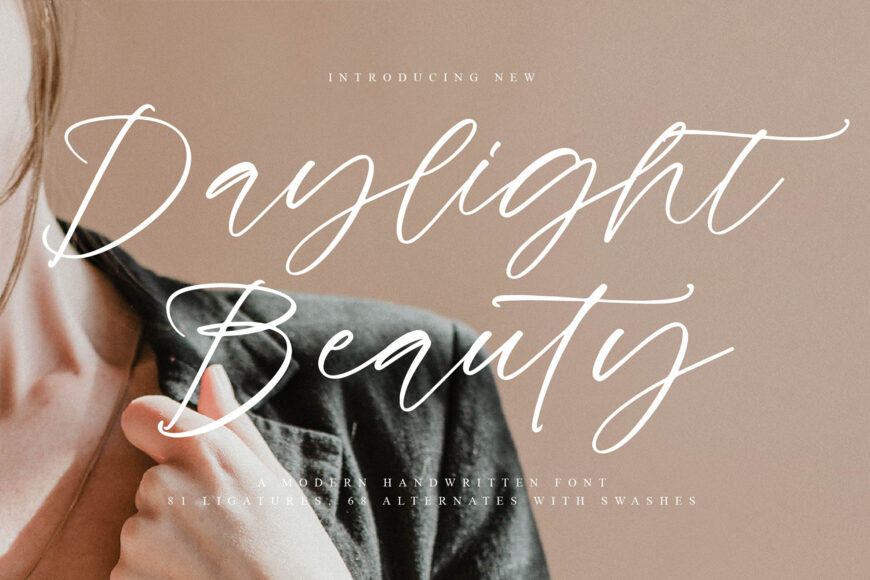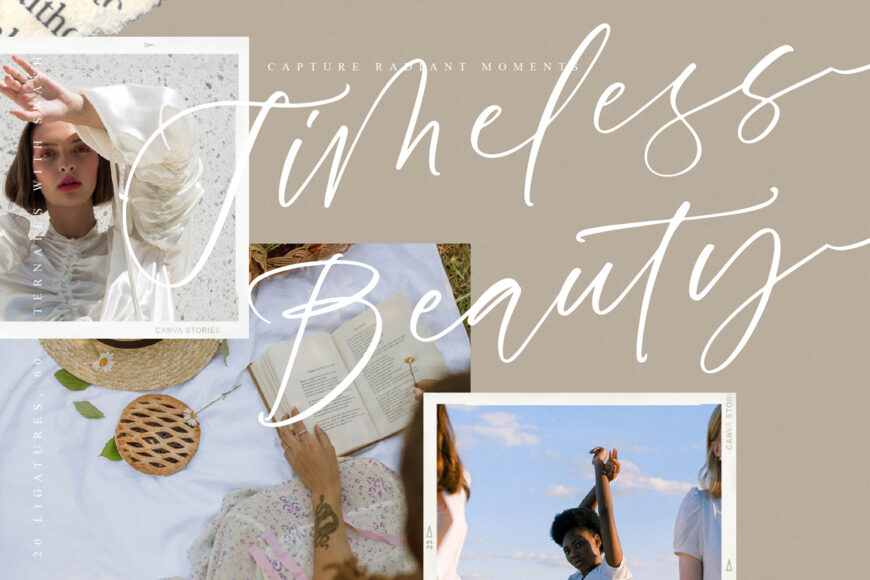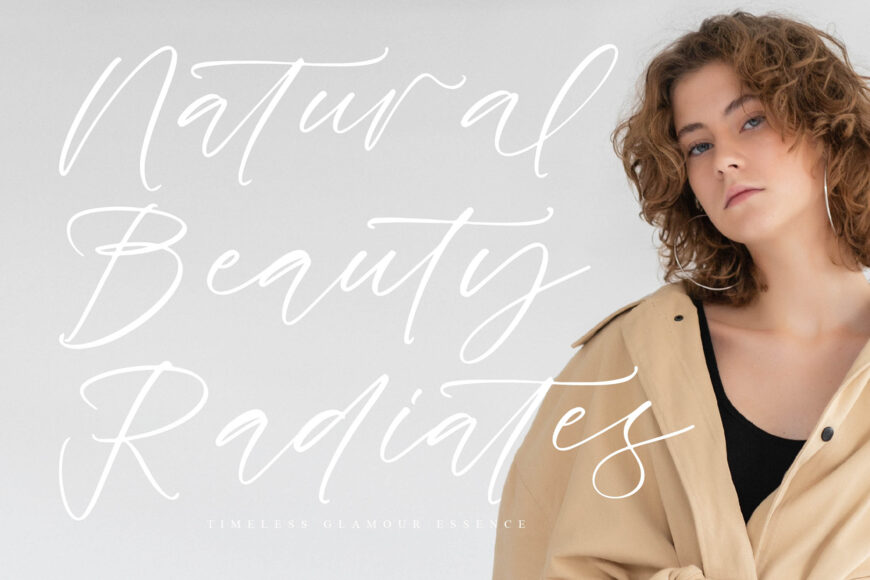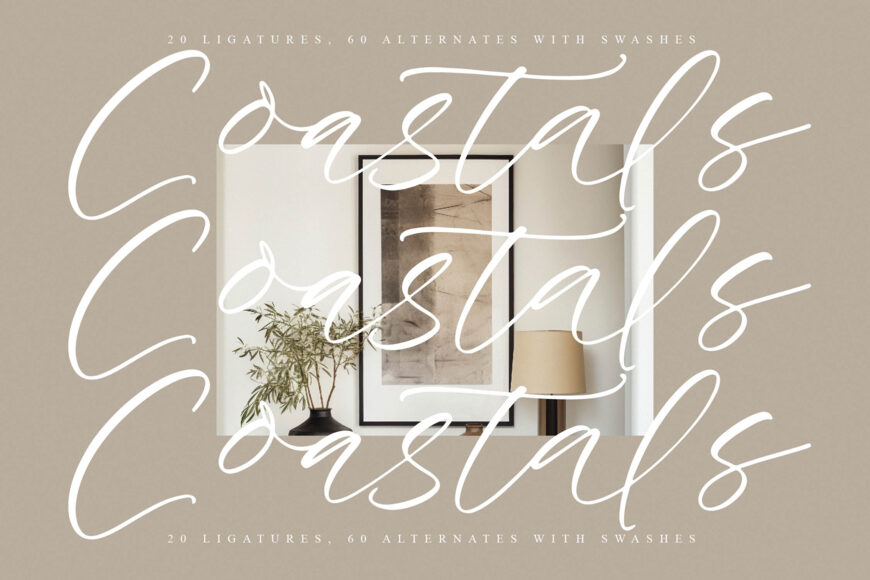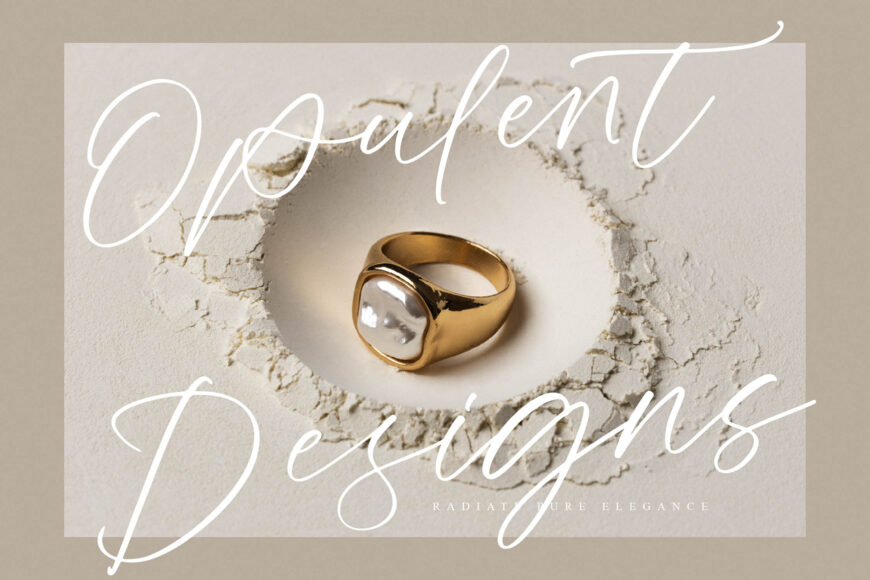
Daylight Beauty is a modern, elegant script font with a feminine touch. Its smooth strokes and stylish swashes bring sophistication to designs. With 81 ligatures and 68 alternates, it offers endless creative possibilities.
This versatile font is perfect for various projects, from wedding invitations to fashion campaigns, adding a refined and timeless touch to elevate any design. Its balanced proportions and fluid rhythm make it both elegant and authentic, ideal for creatives seeking premium branding and artistic expression.